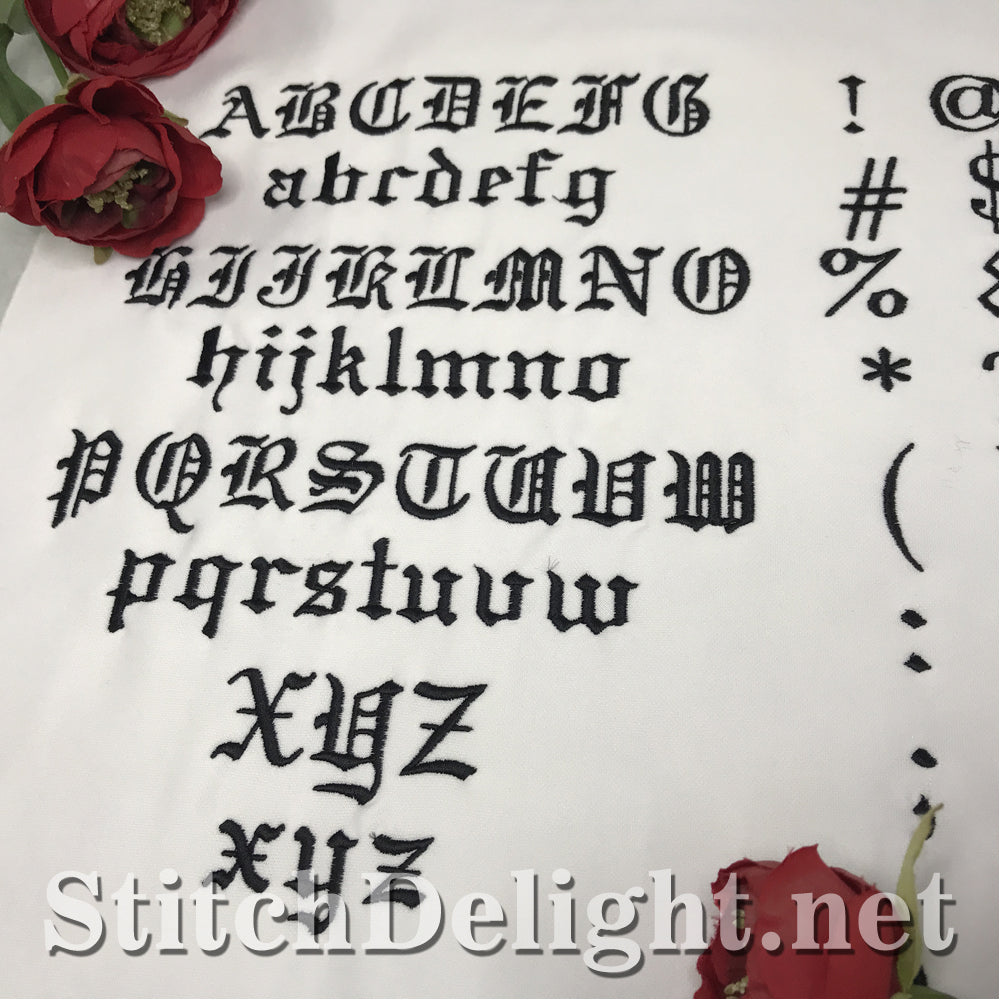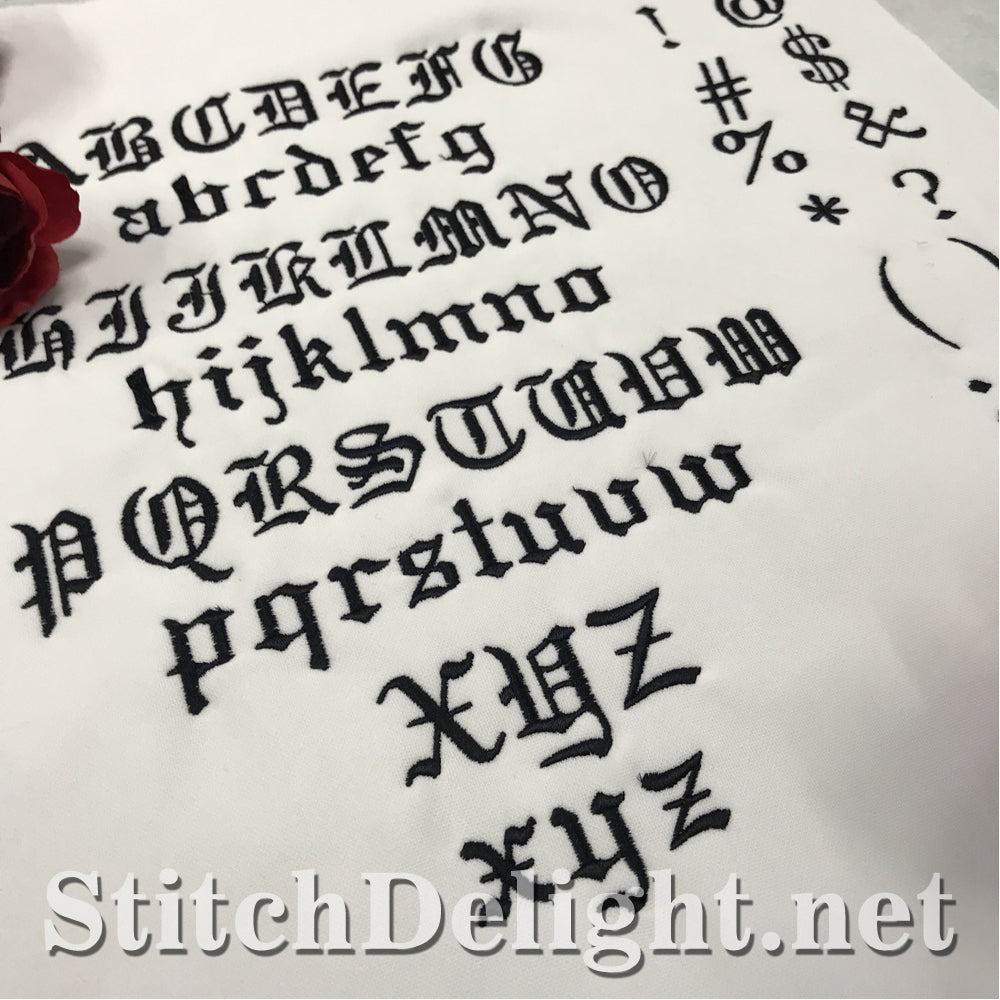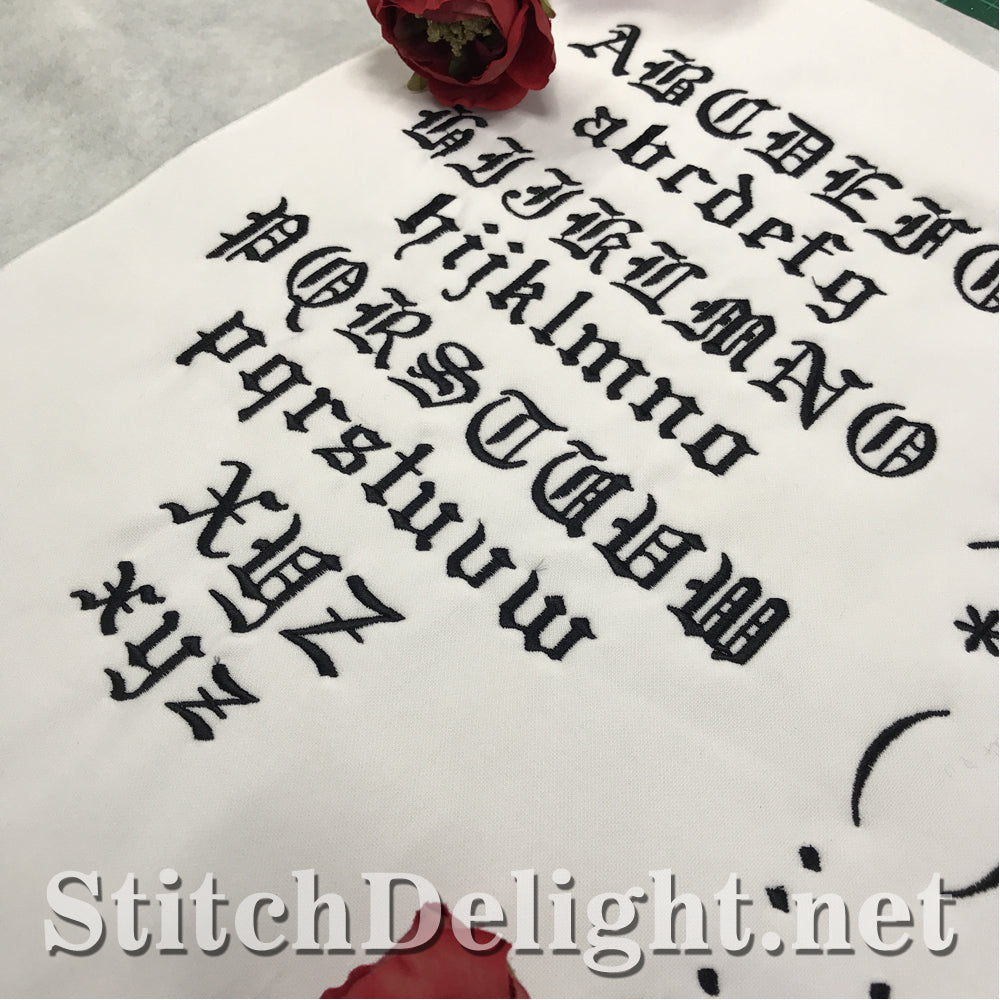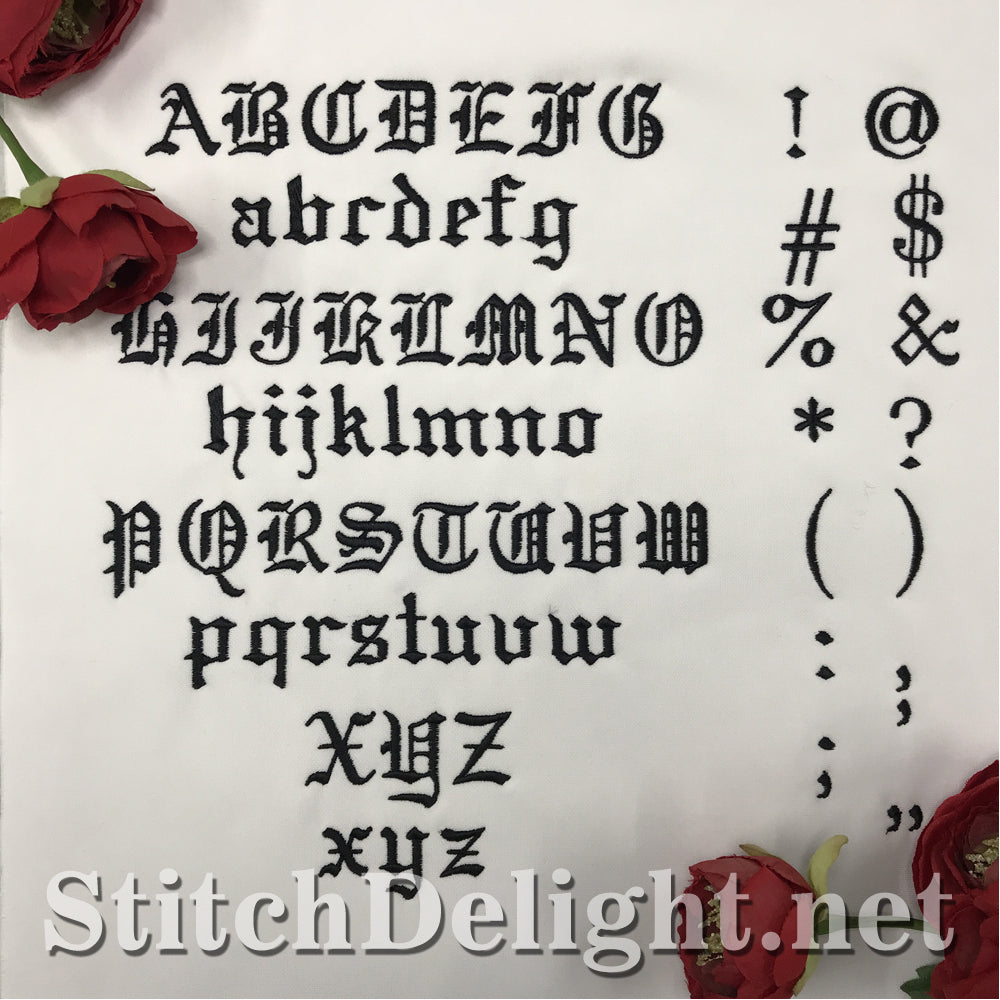
Stunning vintage font made to match HOE0042 perfectly. This font includes both uppercase and lower case letters as well as special characters. Use the included BX format to easily type out your names and sentances on all your projects.